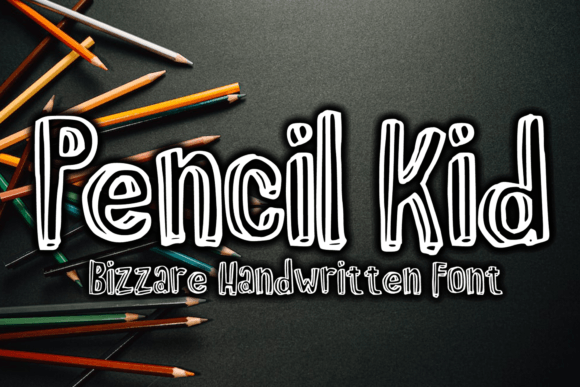
Welcome to the wonderful realm of Pencil Kid Font, a captivating creation of MVMET. This script font family is a testament to the magical bond between whimsy and sophistication, rendering your designs with an aura of enchantment and charm. The very essence of Pencil Kid lies in its adaptability and ease of use. Whether you're an experienced graphic designer or just starting out, this font will effortlessly transform your ideas into captivating realities.
Enter the world of Pencil Kid Font, a font that embodies the free-flowing spirit of childhood. Its playful persona and inviting style make it an ideal choice for children's books, greeting cards, and stickers. Imagine the joy on your child's face as they read bedtime stories adorned with Pencil Kid's playful strokes. Feel the warmth of love and connection as you send heartfelt messages on cards adorned with Pencil Kid's whimsical charm. Each letter dances across the screen, carrying warmth and enchantment, creating an experience that resonates with the innocence and wonder of youth.
Beyond its playful charm, Pencil Kid Font holds the power to capture the attention of your target audience with its flair for the extraordinary. Its versatility extends to t-shirts, posters, and social media graphics. Envision your designs adorned with Pencil Kid's captivating style, attracting attention like a magnet. Each stroke, each curve, and each twist of the letters will draw eyes and ignite imaginations, ensuring your message reaches the hearts of your audience.
With Pencil Kid Font, the possibilities are as boundless as your imagination. Unleash your creativity and let the playful spirit of this font guide you to artistic heights. Embrace its versatility and see your designs transformed into captivating masterpieces. Download Pencil Kid Font today and embark on a journey where magic meets reality, where imagination knows no bounds. Let your designs flourish with Pencil Kid's enchanting touch and experience the joy of bringing life to your creative visions.